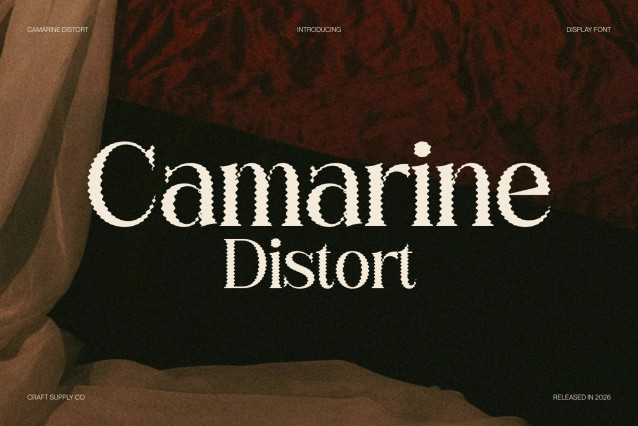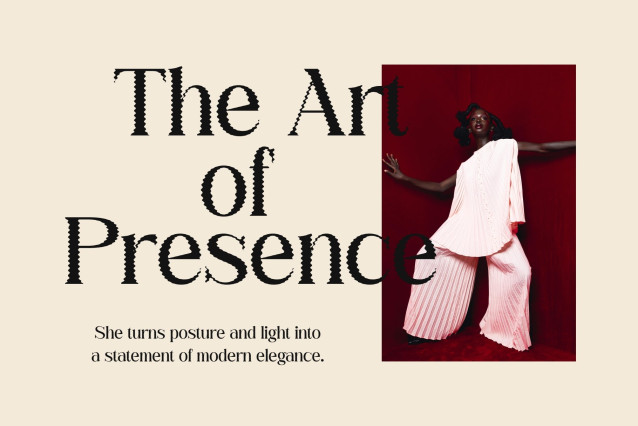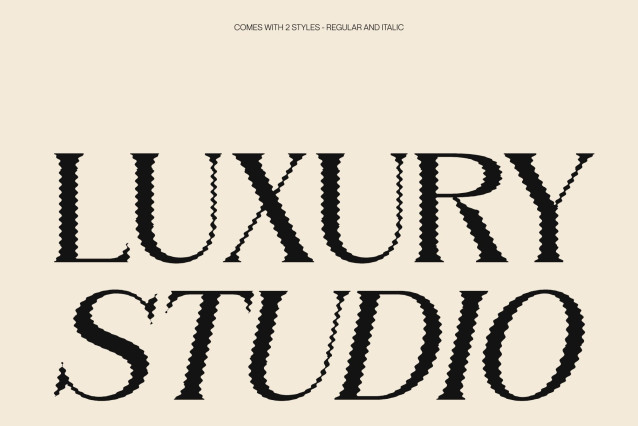
Camarine Distort – Serif Font: Editorial Elegance with a Fluid Modern Twist
Modern Editorial Serif with Distorted Refinement
This font redefines modern elegance by transforming a sophisticated editorial serif into an expressive, melting display typeface. Inspired by high-end magazine typography, its refined structure remains intact while subtle distortion adds a fluid, contemporary edge. The result is a font that feels luxurious, stylish, and artistically dynamic.
Melting Elegance with Contemporary Appeal
The distort effect introduces soft, flowing edges that gently reshape the serif details, creating a sense of movement and visual intrigue. This artistic treatment enhances the font’s editorial personality, making it feel both polished and creatively experimental.